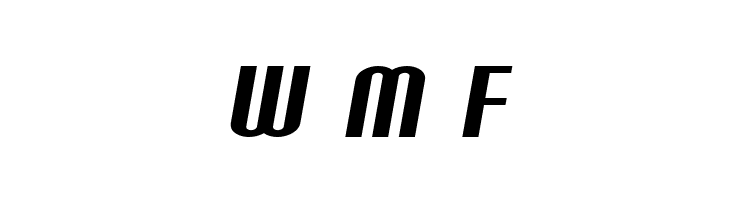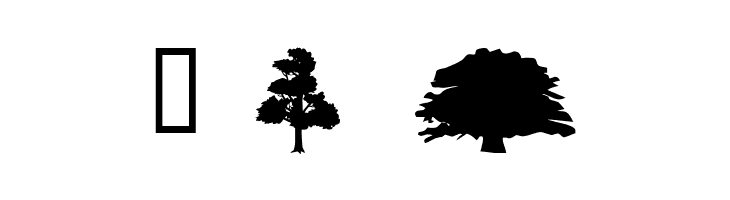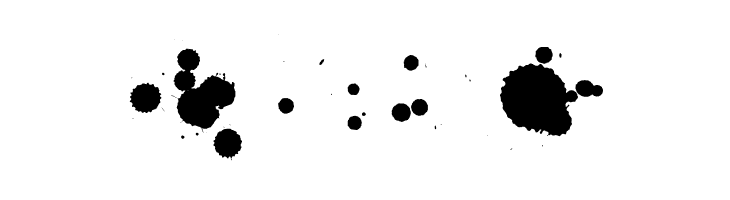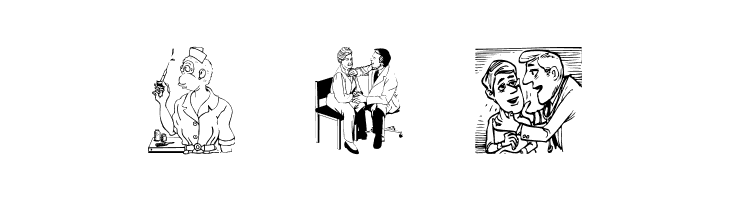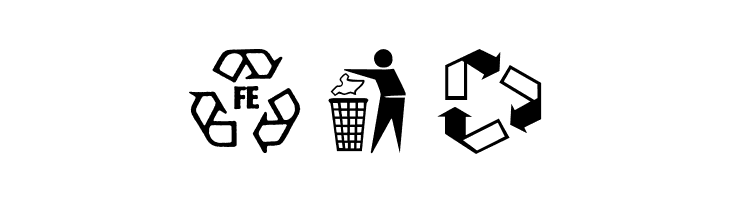
A bold, oblique font with a dynamic and modern style.
A dynamic, oblique font with sleek, narrow letters and a modern aesthetic.
A bold, oblique, and condensed font ideal for impactful headlines.
A bold, extended, and italicized font with a modern and dynamic style.
A classic serif font with modern elements, offering elegance and readability.
A bold, high-contrast font perfect for impactful headlines and logos.
A dynamic, italicized font with expanded letterforms and a modern flair.
A bold, splatter-style font with an artistic and chaotic appearance.
Iconic font with legal and governmental symbols.
A collection of music-themed icons in a clean, modern line art style.
A display font using bird silhouettes as letterforms.
Cartoonish, medical-themed decorative font with hand-drawn illustrations.
Bold, high-contrast eco and recycling icon set.
Marine-themed dingbat font with orcas, whales, and nautical icons.
A playful and decorative collection of medical-themed symbols and illustrations.
A decorative font with characters resembling intricate tree branches and roots.